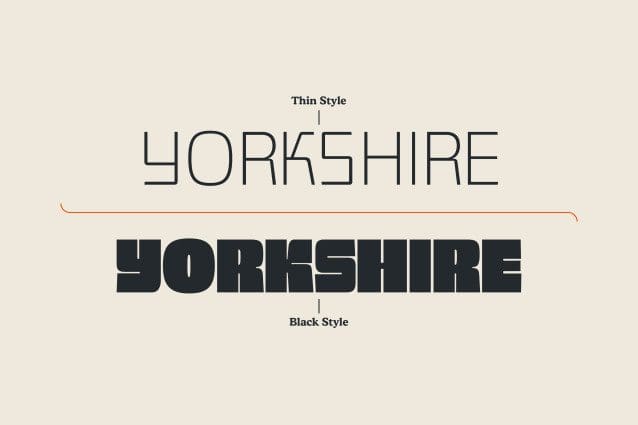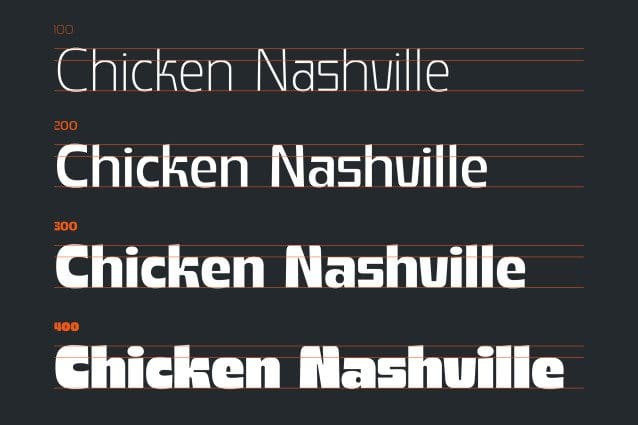
SG Takimon Font
SG Takimon Font is a display typeface with variable weight. SGTakimon has uppercase and lowercase letters. It’s fun, pop, and playful!